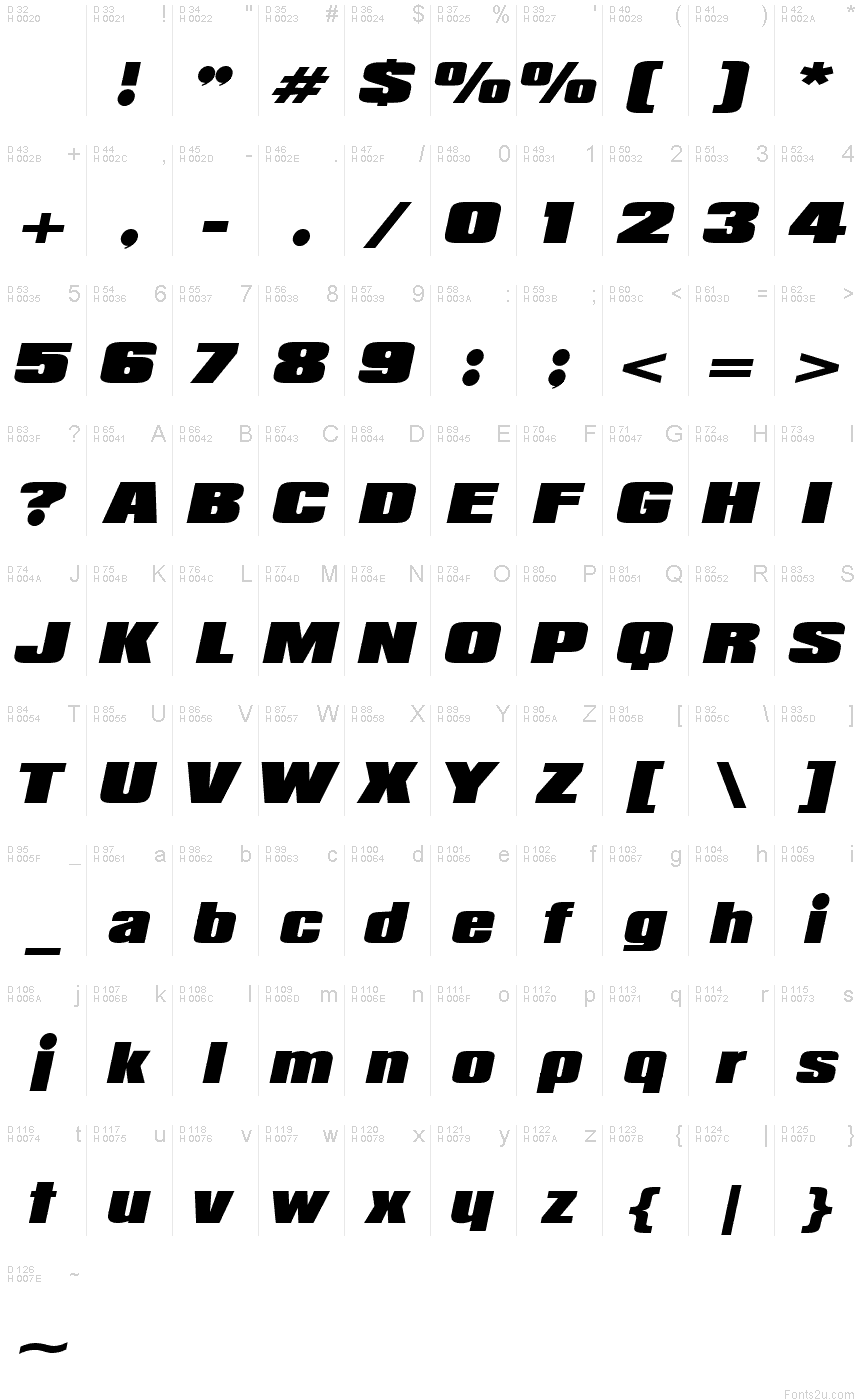
Padaloma Italic
Padaloma Italic font by Sharkshock Productions is a free italic sans serif font with a strong forward slant and broad, rounded shapes. The letters come across as one tight, leaning wordmark, with smooth curves that keep the rhythm fast and direct.
Padaloma Italic suits logo marks, poster titles, sports graphics, packaging, social posts, and short signage because the slanted structure gives every word a sense of movement. It is a solid choice for brief headlines, badge-style labels, and promotional copy that needs a firm sans serif with extra angle.